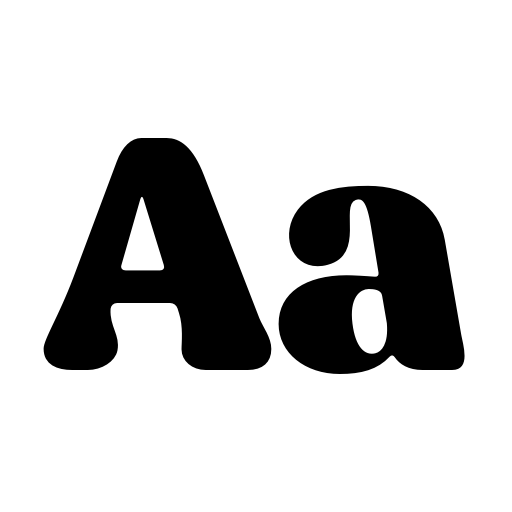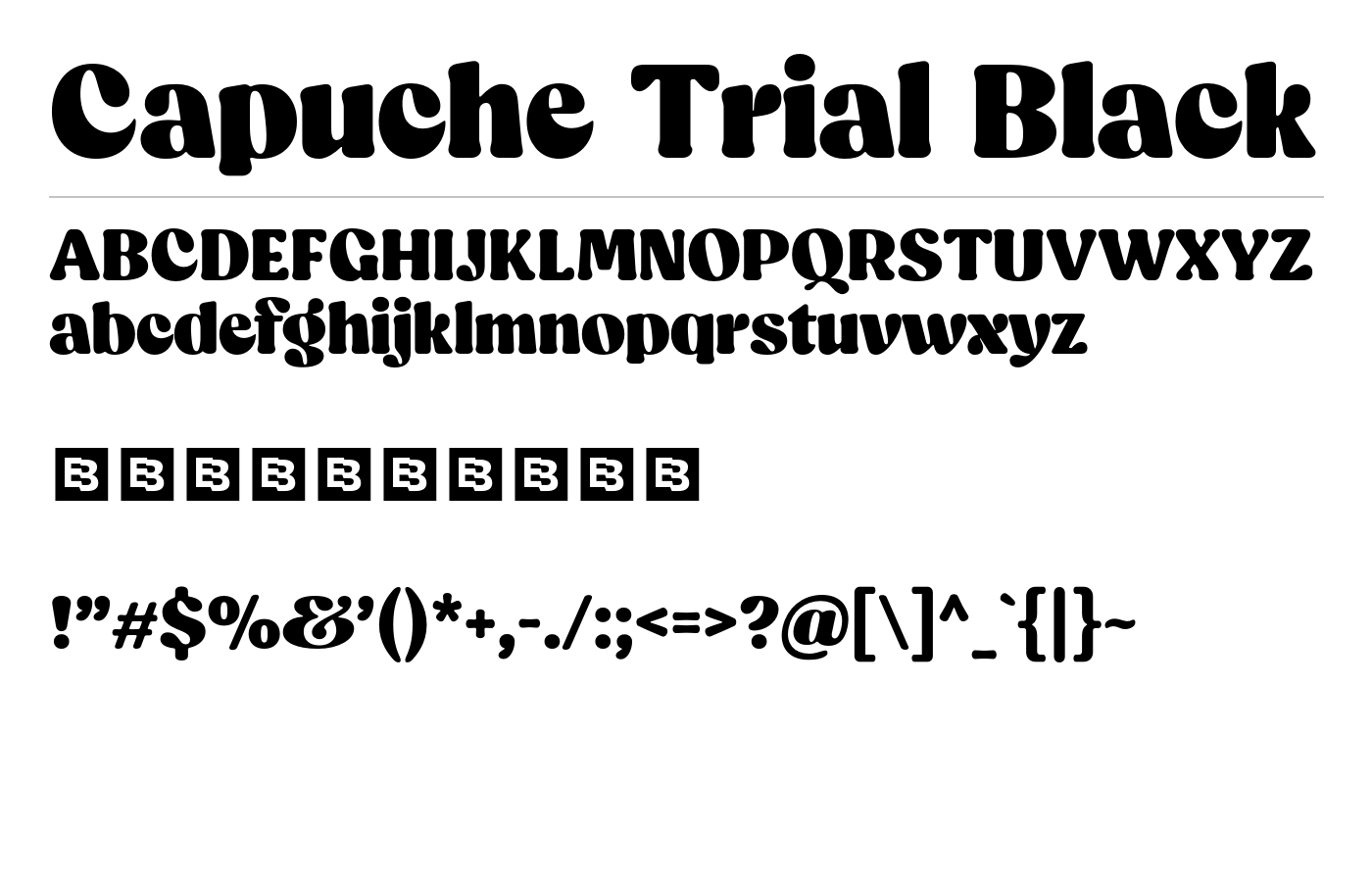
Capuche Trial Black is a bold slab serif font with thick, rounded serifs and a strong presence. Its high contrast and playful, slightly condensed letterforms give it a vintage yet approachable feel, making it ideal for eye-catching headlines, logos, and branding projects that seek a blend of retro charm and modern impact. This font works particularly well where you want to convey personality and warmth without sacrificing readability.
Capuche Trial Font
About Capuche Trial Font
| Font family | Capuche Trial Font |
| Designer | Eko Bimantara |